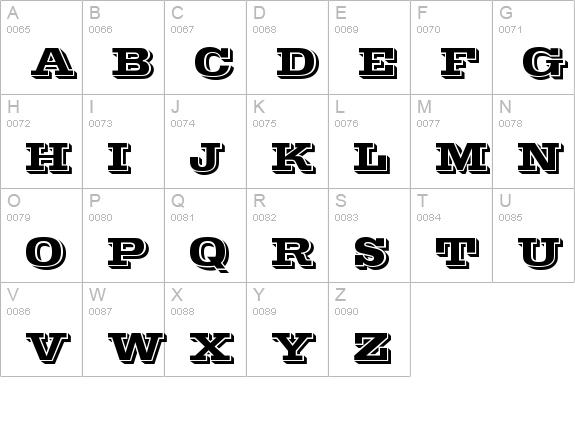
Introducing Vineta, a stunning and versatile font that effortlessly combines elegance and modernity. With its sleek lines and graceful curves, Vineta is the perfect choice for any design project that requires a touch of sophistication. This captivating font offers a wide range of weights and styles, making it suitable for various purposes, from elegant logos to eye-catching headlines. Vineta's impeccable legibility ensures that your message is conveyed with utmost clarity, while its unique character set adds a sense of individuality to your designs. But that's not all - Vineta is also available for free! Yes, you heard it right. This exceptional font can be freely downloaded at FontsMarket.com, allowing designers and creatives alike to access its beauty without any cost. So why wait? Elevate your designs with the timeless charm of Vineta. Download this remarkable font today and experience the limitless possibilities it brings to your creative endeavors.